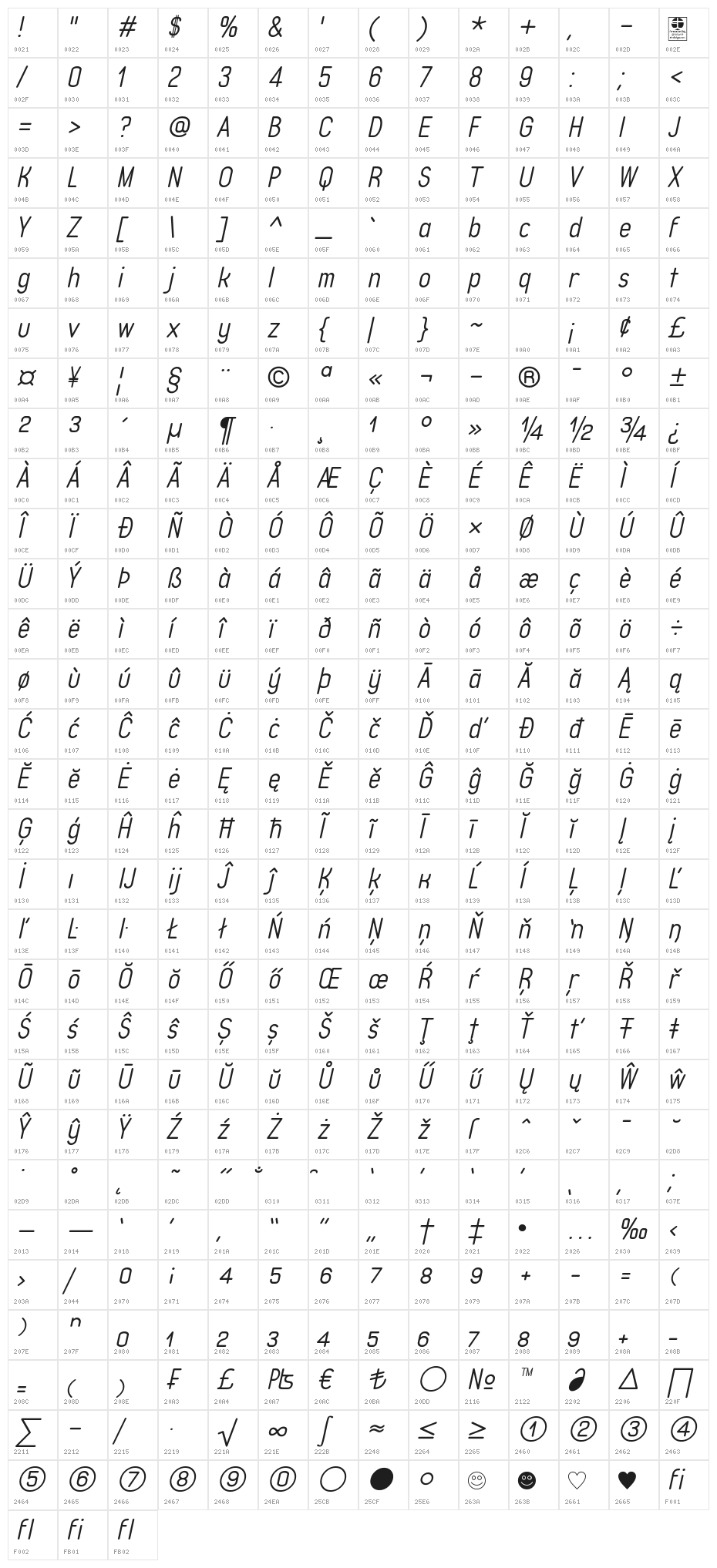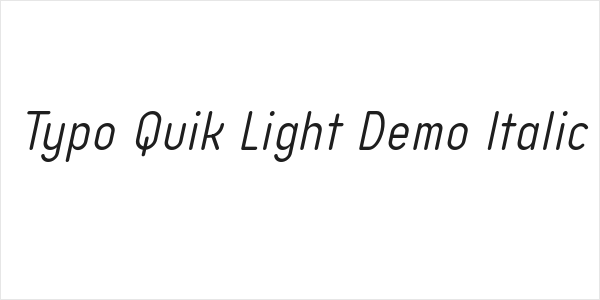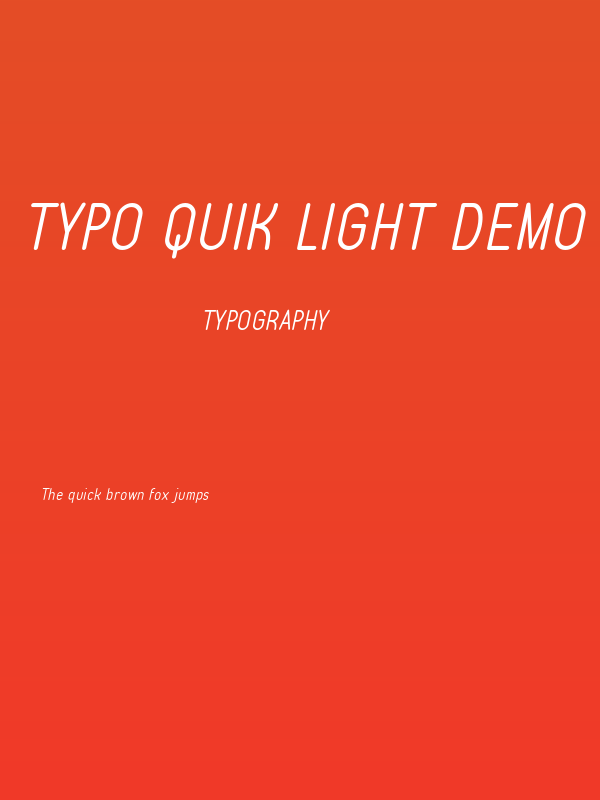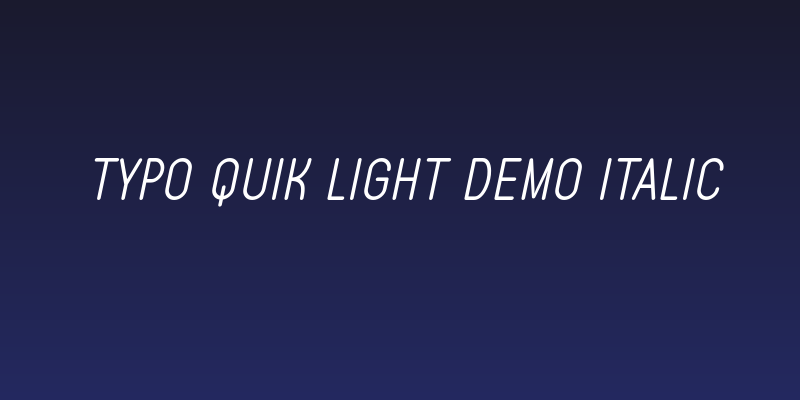
Typo Quik Light Demo Italic Font
Typo Quik Light Demo Italic Description
This font features a sleek, modern design with a light and airy feel. The characters are slightly elongated, giving them an elegant and sophisticated appearance. The italic style adds a dynamic and fluid touch, making it suitable for creative and contemporary projects. The font maintains a consistent stroke width, providing a clean and uniform look across all characters. The spacing between characters is balanced, ensuring readability while maintaining a stylish aesthetic. This font is versatile, making it ideal for a variety of design applications.